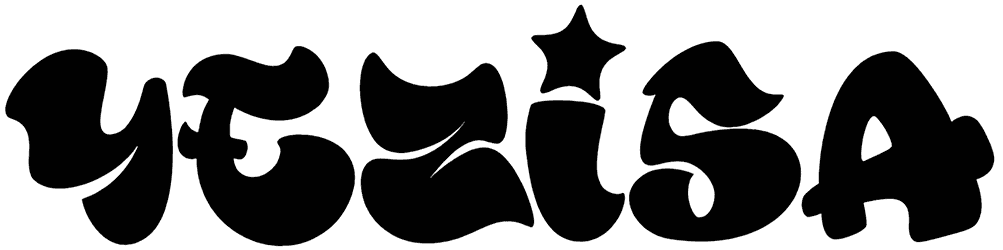
Yezisa Font
The graffiti font Yezisa is great for bold projects like comics, posters, and urban design, thanks to its wacky letters and thick structure.